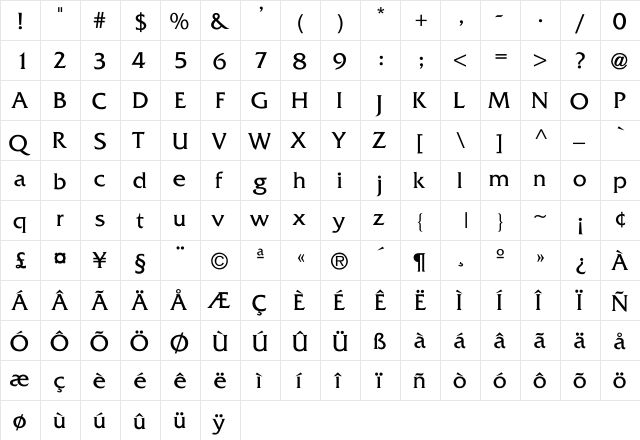
BigBear Light Regular
Design Context for BigBear Light Typeface
BigBear Light offers clean, dependable letterforms without strong stylistic allegiance, making it a practical choice for designers who need flexibility. Its slender proportions lend an understated elegance to any composition.